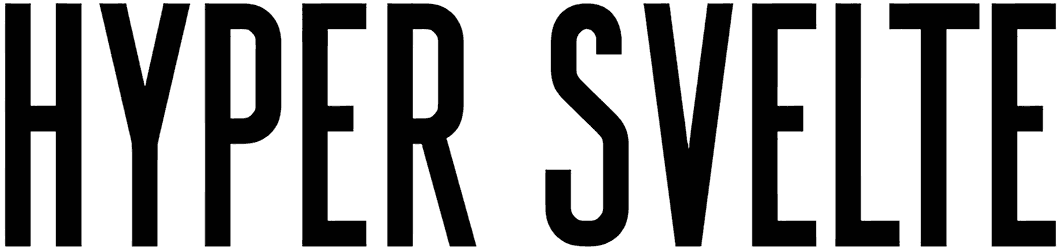
Hyper Svelte Font
Because of those tech vibes generated by its tall characters, you’ll find this all-caps sans serif font so good at designing your promotional content for brands of appliances or even a music show with an electric guitar.